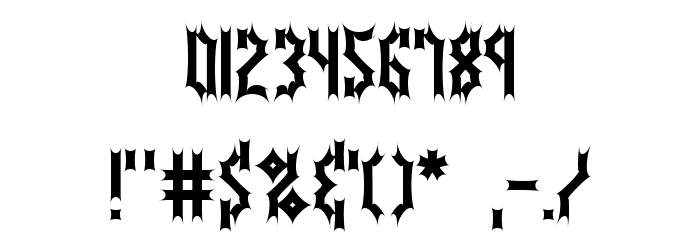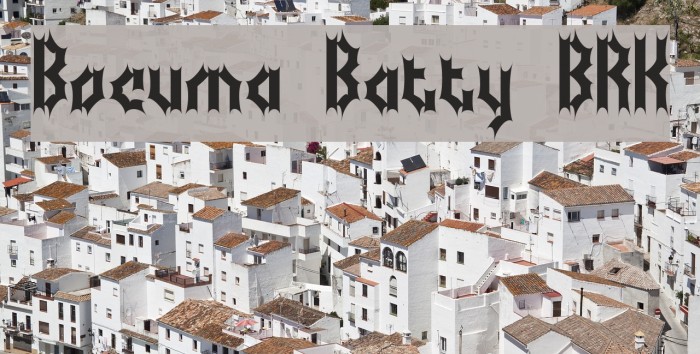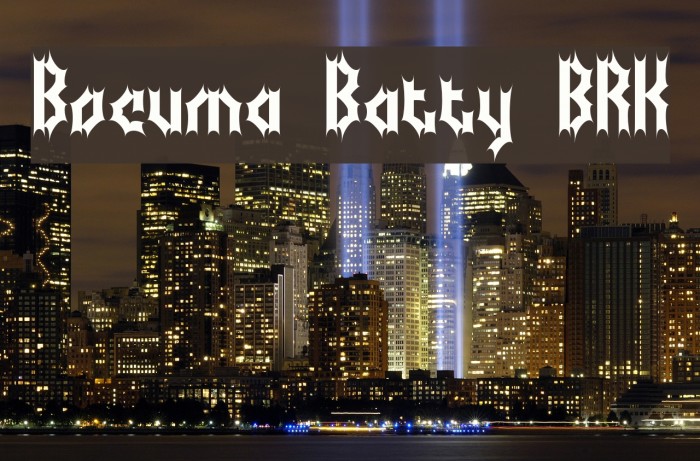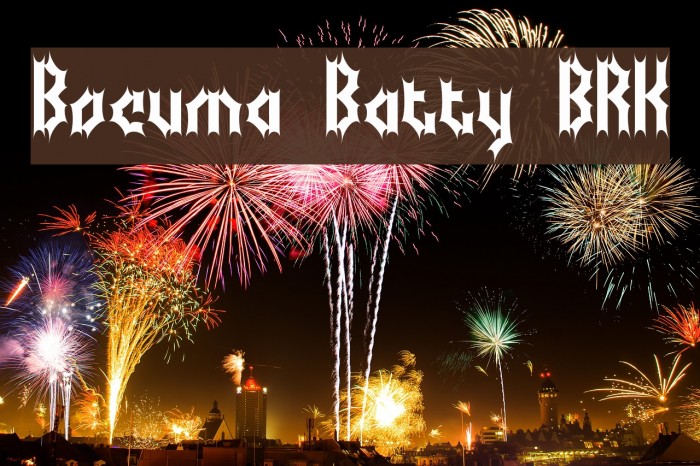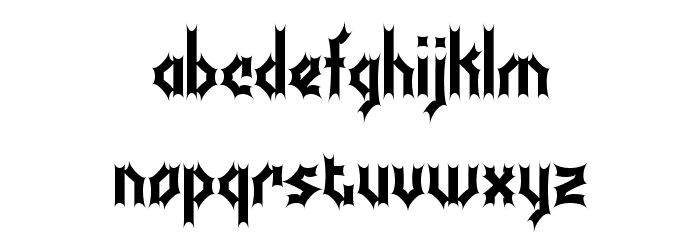
Bocuma Batty BRK Font
This font features a bold, gothic-inspired design with sharp, angular edges and a dramatic presence. The uppercase and lowercase letters maintain a consistent style, characterized by pointed serifs and a slightly condensed form. The numbers and special characters follow the same aesthetic, ensuring a cohesive look across all text elements. The font's unique style is reminiscent of medieval or horror themes, making it ideal for projects that require a strong, eye-catching typeface. Its intricate details and high contrast between thick and thin strokes add to its decorative appeal.
A bold, gothic-inspired font with sharp, angular edges and high contrast.
• Proposed Projects: Ideal for Halloween-themed designs, gothic posters, album covers, and video game titles.
• Category: Decorative/Display
• Bold: Yes
• Italic: No
• Weight: Bold
• Width: Condensed
• Character Spacing: Normal
• Contrast: High
• Overall Style: Gothic, Decorative
• Use Case: Headlines, Logos, Posters